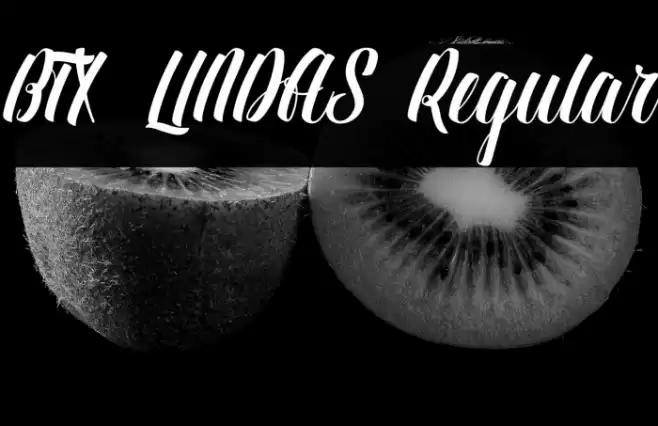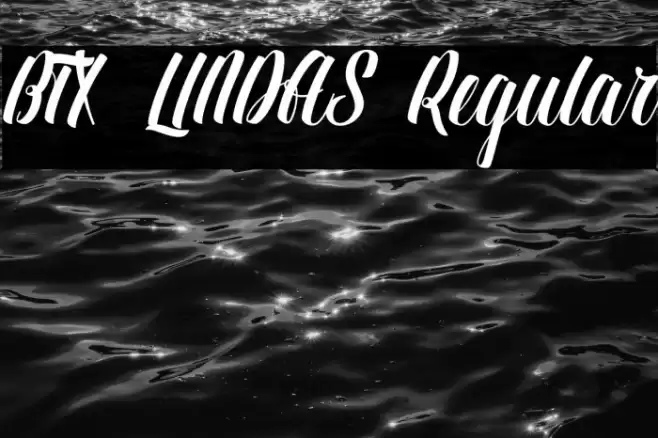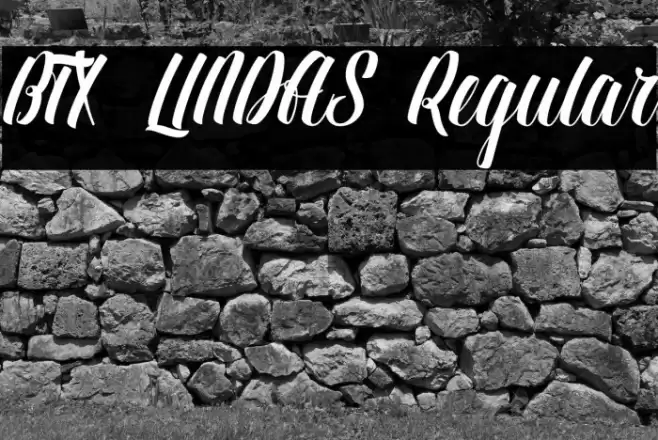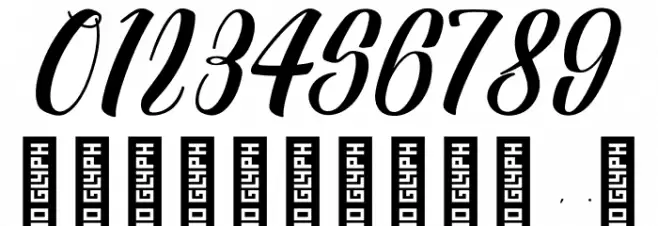
BTX-LINDAS Regular Font
BTX-LINDAS Regular Description
This font features a dynamic and flowing script style, characterized by its elegant and fluid letterforms. The strokes are smooth and connected, giving it a handwritten appearance with a modern twist. The uppercase letters are bold and prominent, while the lowercase letters maintain a consistent flow, enhancing readability. The numerals are stylish and align well with the overall script theme. Special characters are seamlessly integrated, maintaining the font's cohesive look. This font exudes a sense of sophistication and creativity, making it suitable for a variety of design projects.
A dynamic and elegant script font with a modern, handwritten style from Regular fonts.
- Proposed Projects: Ideal for wedding invitations, branding, logo design, and elegant stationery.
- Use Case: Logos, Invitations, Branding